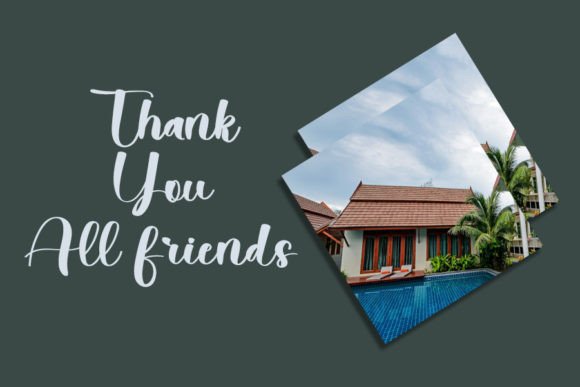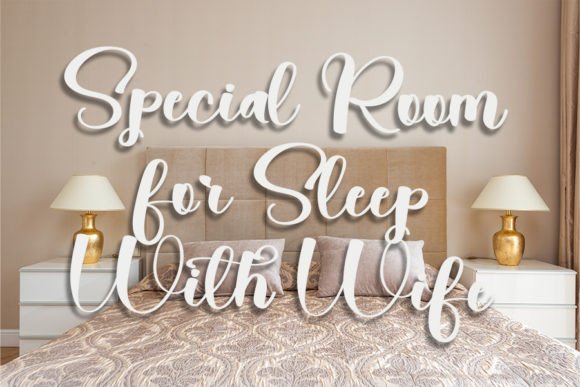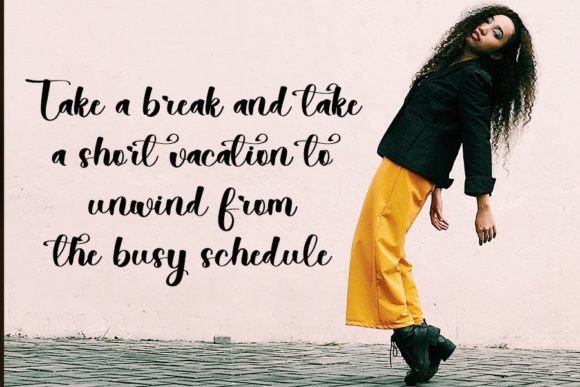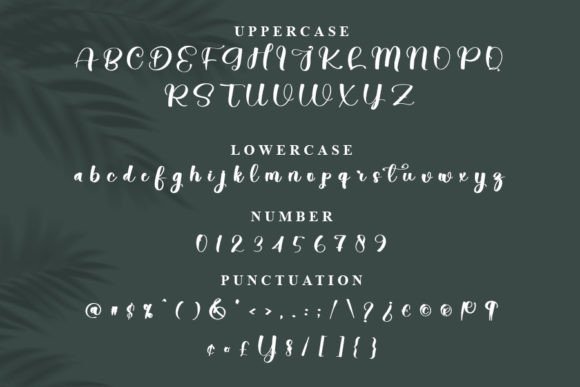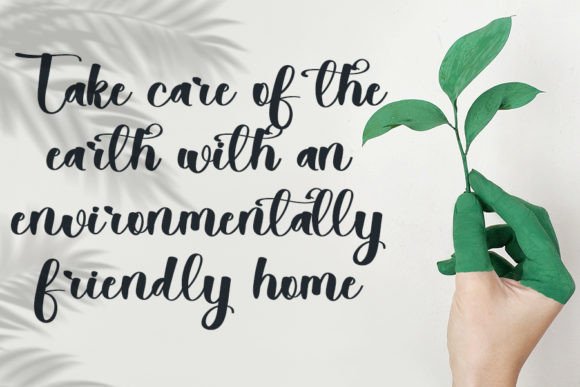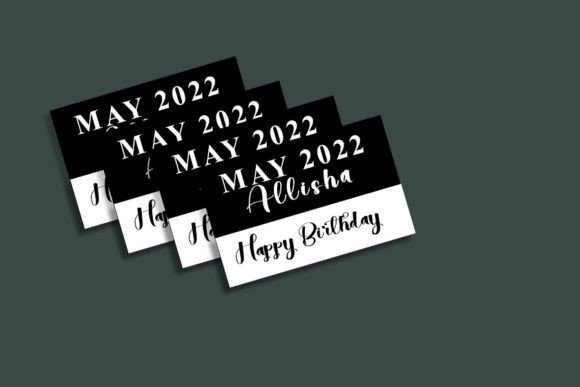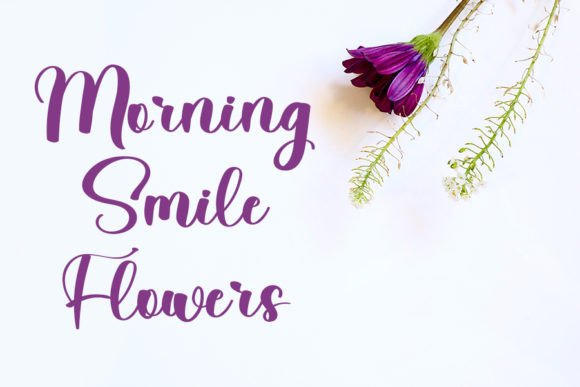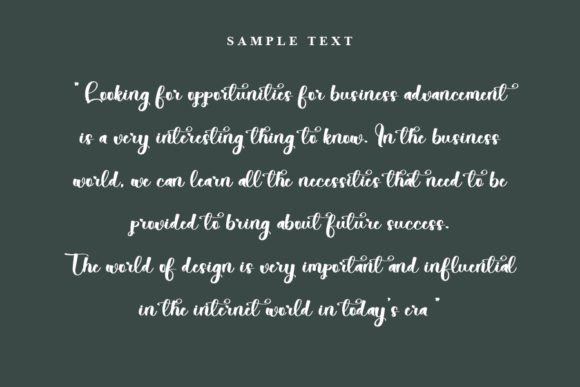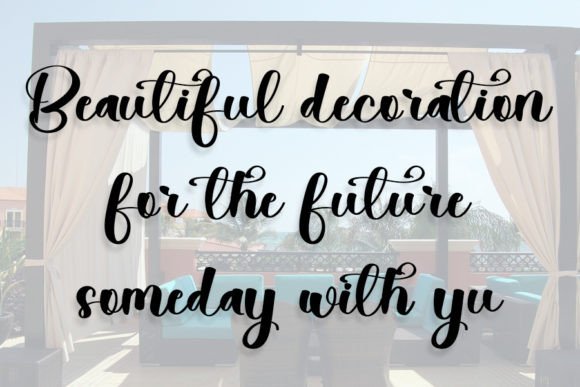
Villa Font
About Villa Font
Villa is a stylish handwritten font that effortlessly captures a contemporary atmosphere with impeccable form, drawing inspiration from the enduring allure of timeless classic calligraphy. Meticulously crafted, this font strikes a perfect balance and offers a variety of elegant strokes, all with the intention of enhancing the beauty of your projects.
The font’s design reflects a harmonious fusion of modernity and the timeless grace of classic calligraphy. Villa’s stylish handwritten script imparts a sense of sophistication, making it a versatile choice for a wide range of creative endeavors. The balanced and varied characters contribute to a visually pleasing composition, ensuring each element harmonizes seamlessly with the overall design.
Beyond its functional aspect, Villa stands as a design element meant to elevate the inherent beauty of your projects. Whether utilized in branding, invitations, or any creative work, Villa adds a layer of refinement that captivates the viewer. Its adaptability and versatility make it a valuable asset, promising a captivating and stylish visual experience.
One of Villa’s standout features is its effortless integration into different design contexts. Its contemporary flair suits modern projects, while its roots in classic calligraphy bring forth a timeless appeal. This dual nature makes Villa a valuable choice for designers seeking a font that effortlessly adapts to diverse visual requirements.
In summary, Villa is more than just a font; it’s a sophisticated statement that seamlessly merges contemporary style with timeless charm. Its impeccable form, inspired by classic calligraphy, ensures that your projects stand out with a touch of elegance. Opt for Villa to infuse a stylish and enduring atmosphere into your creative endeavors, and experience how it enhances the overall beauty of your designs.